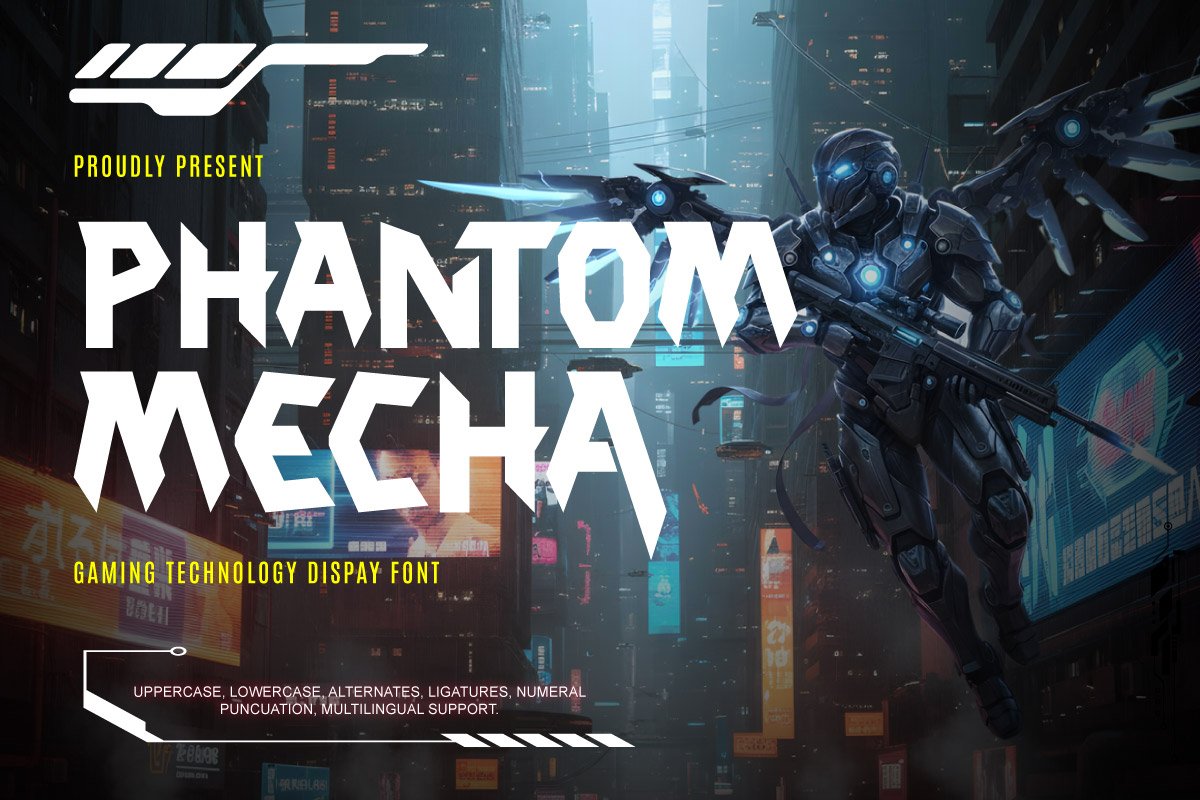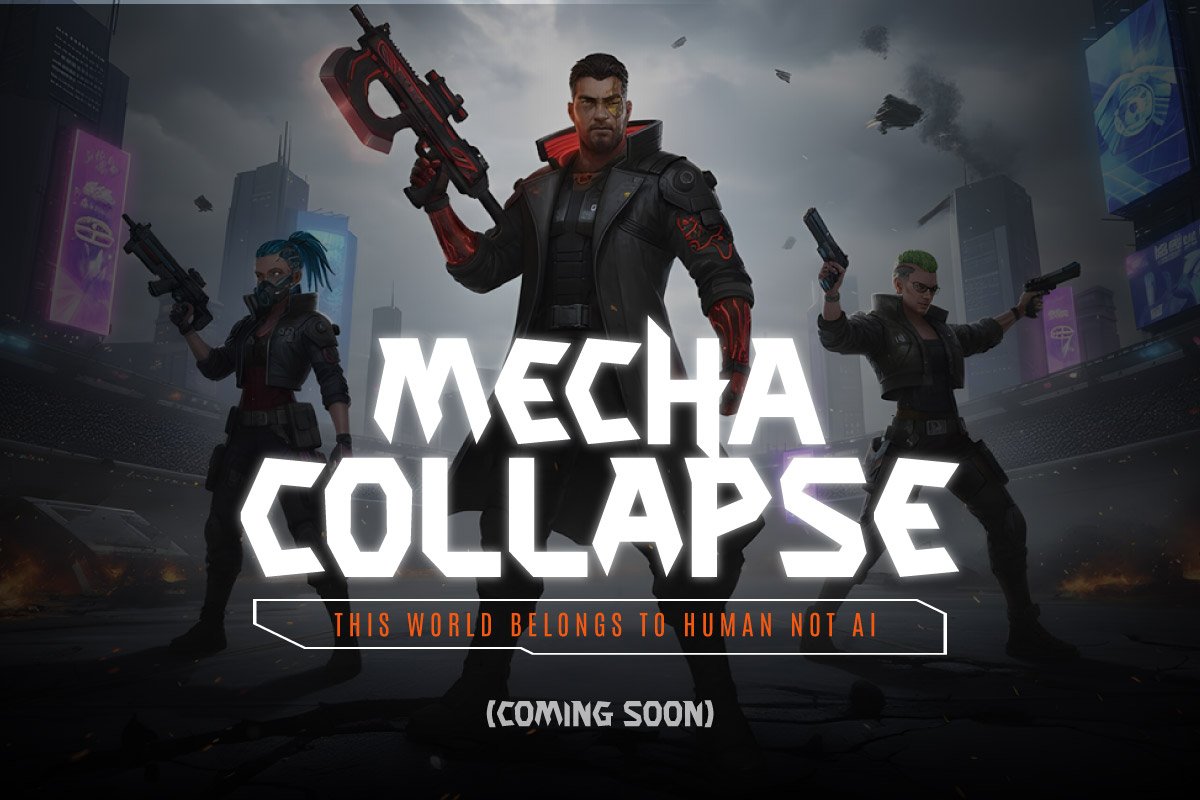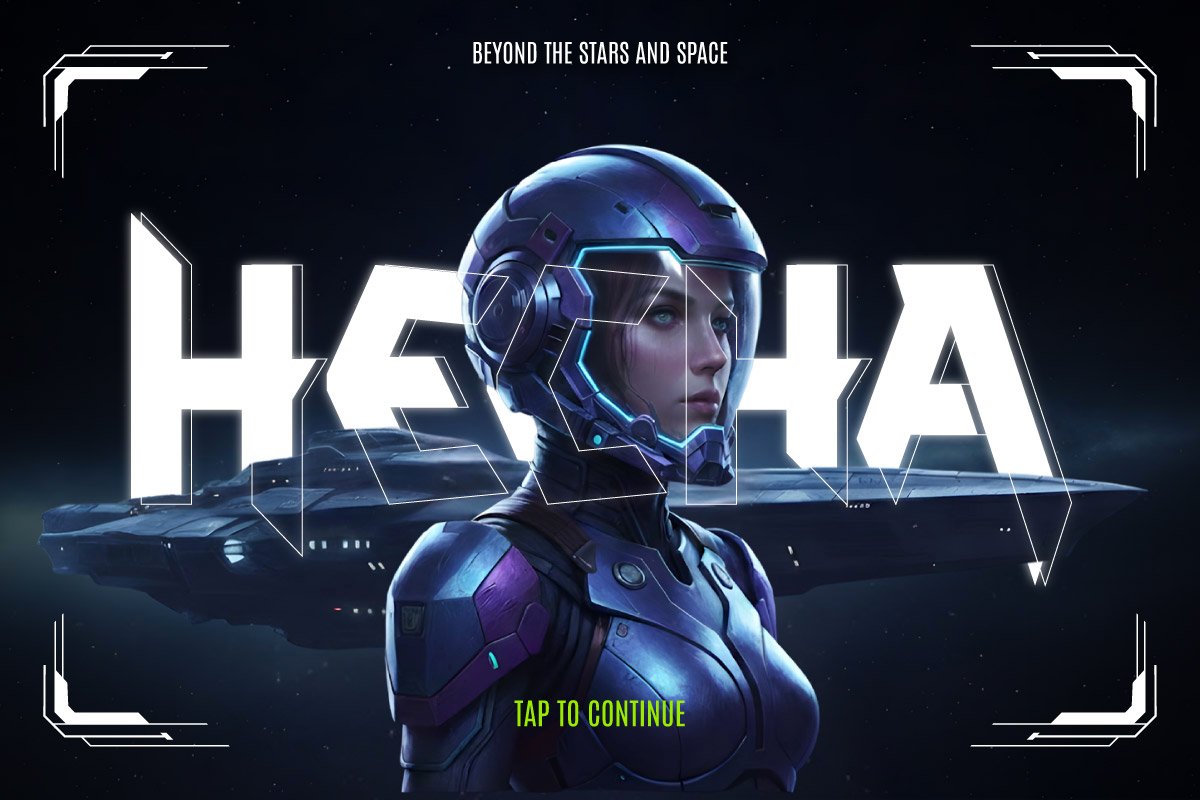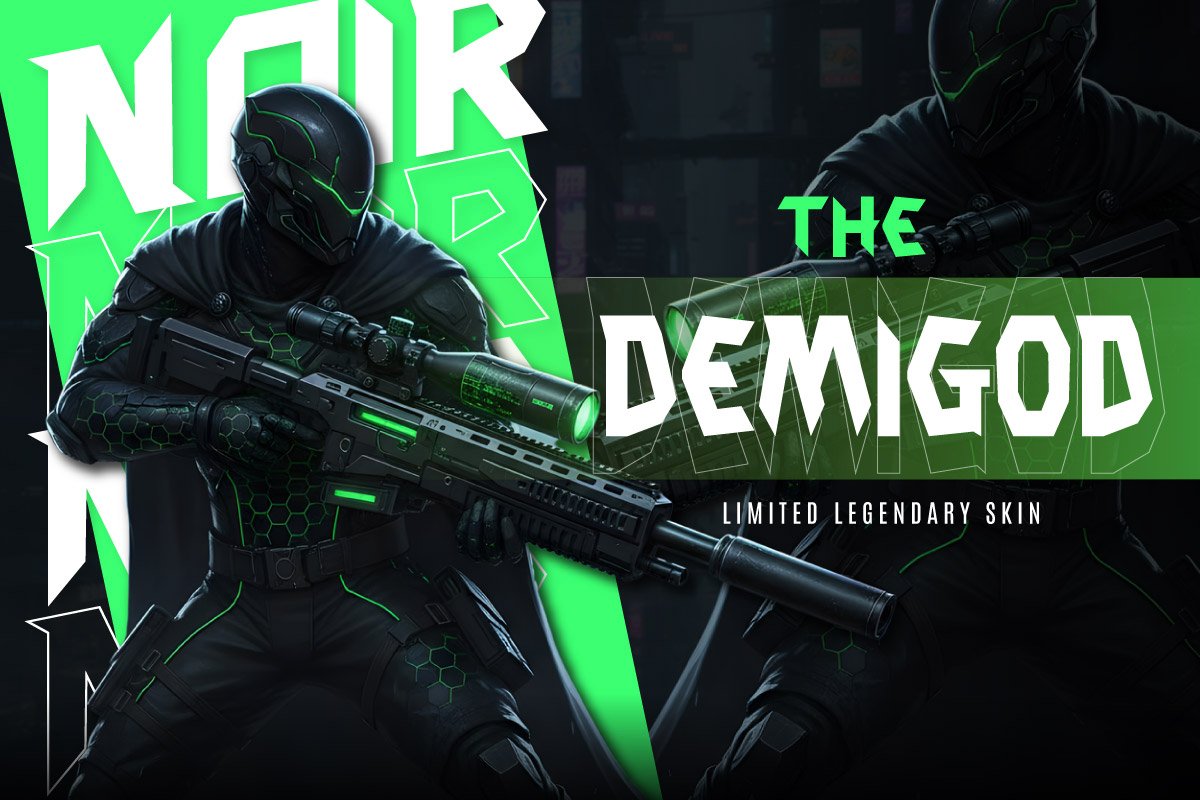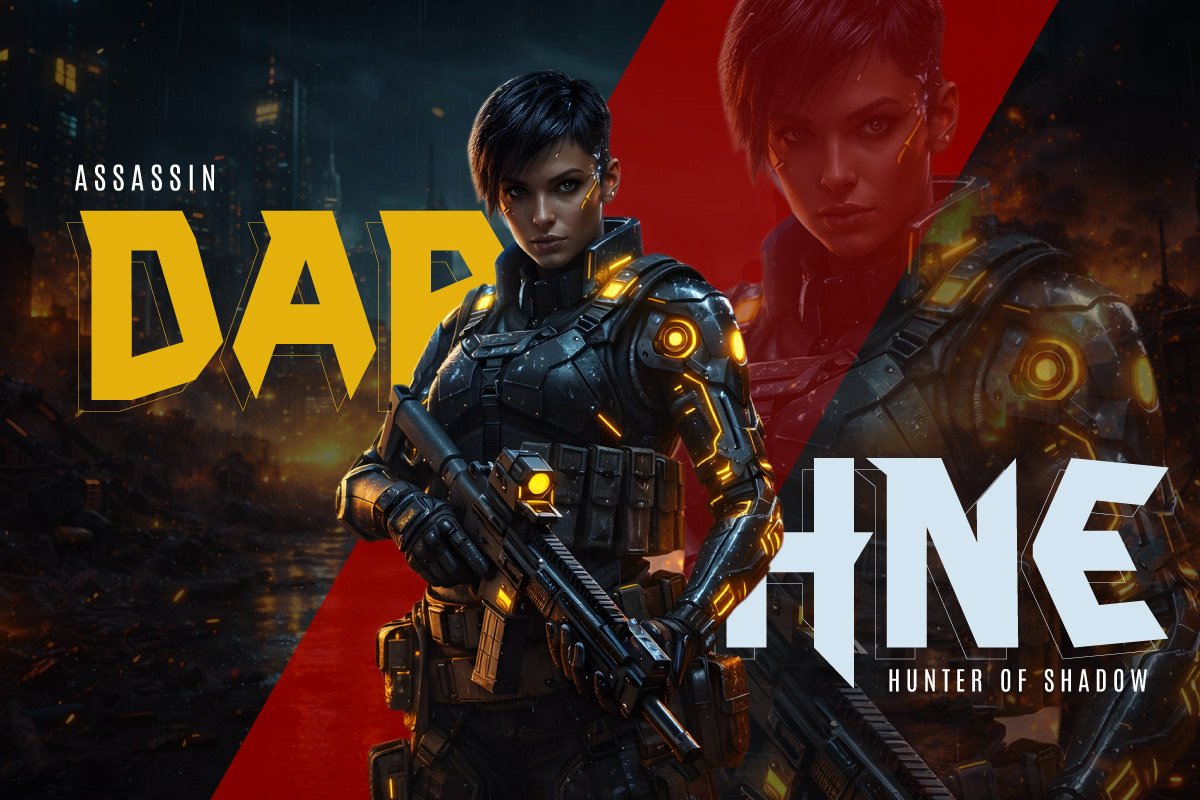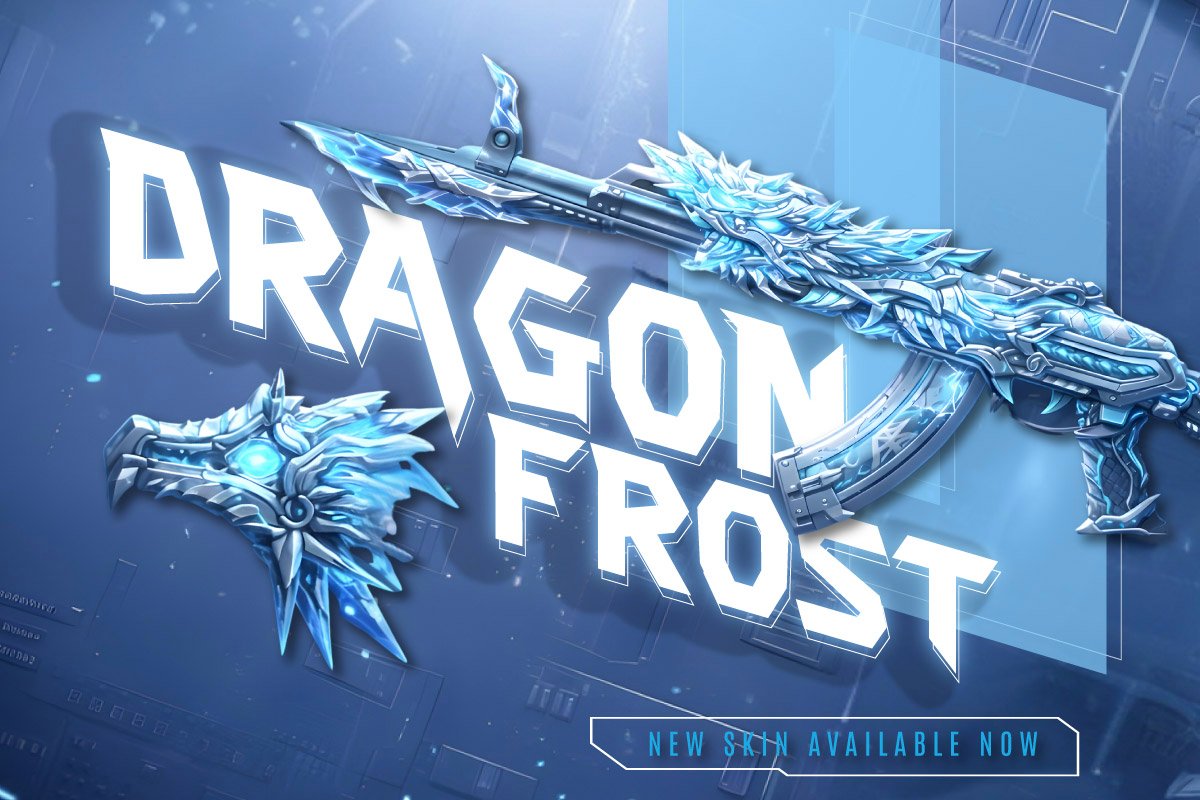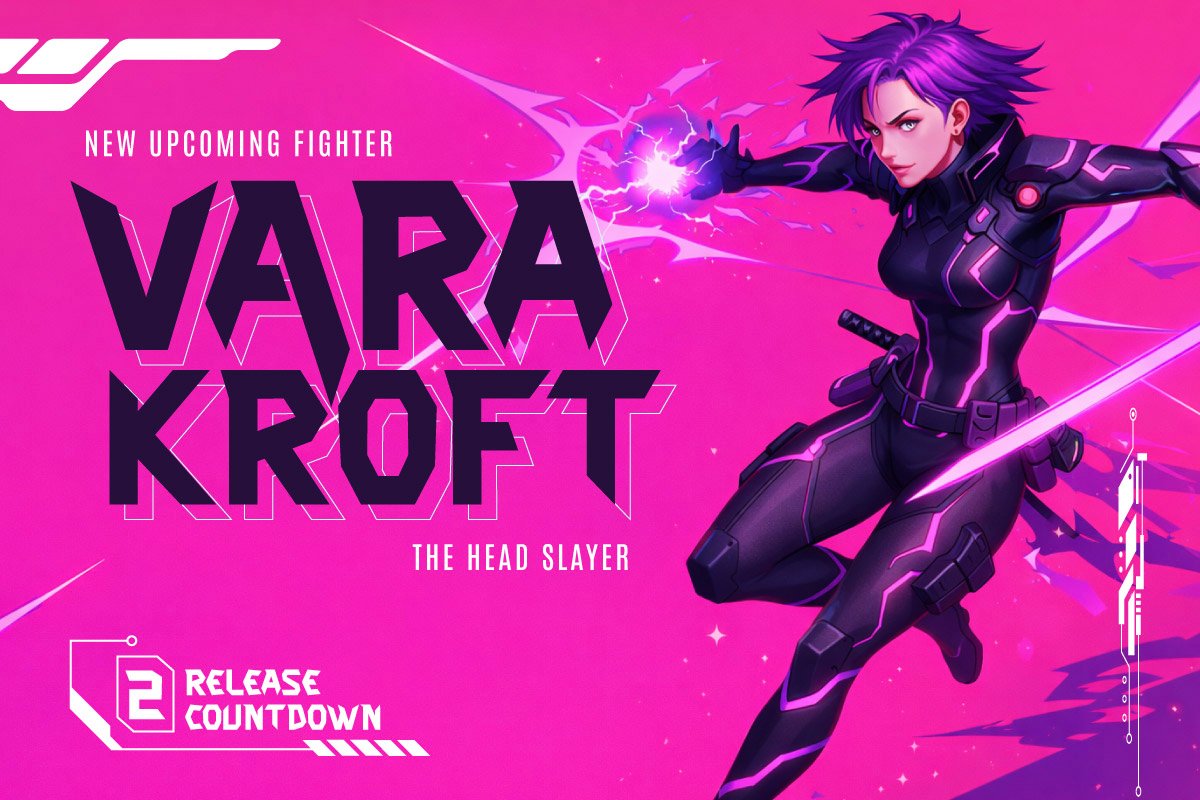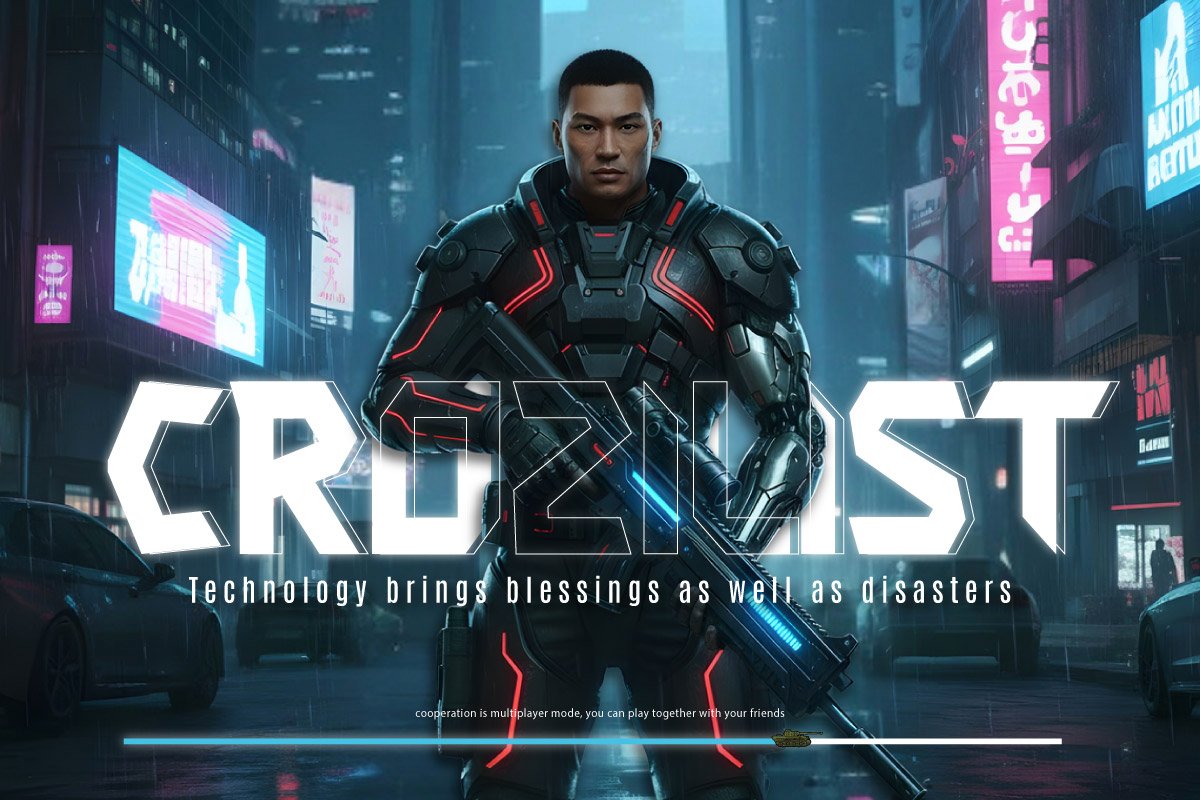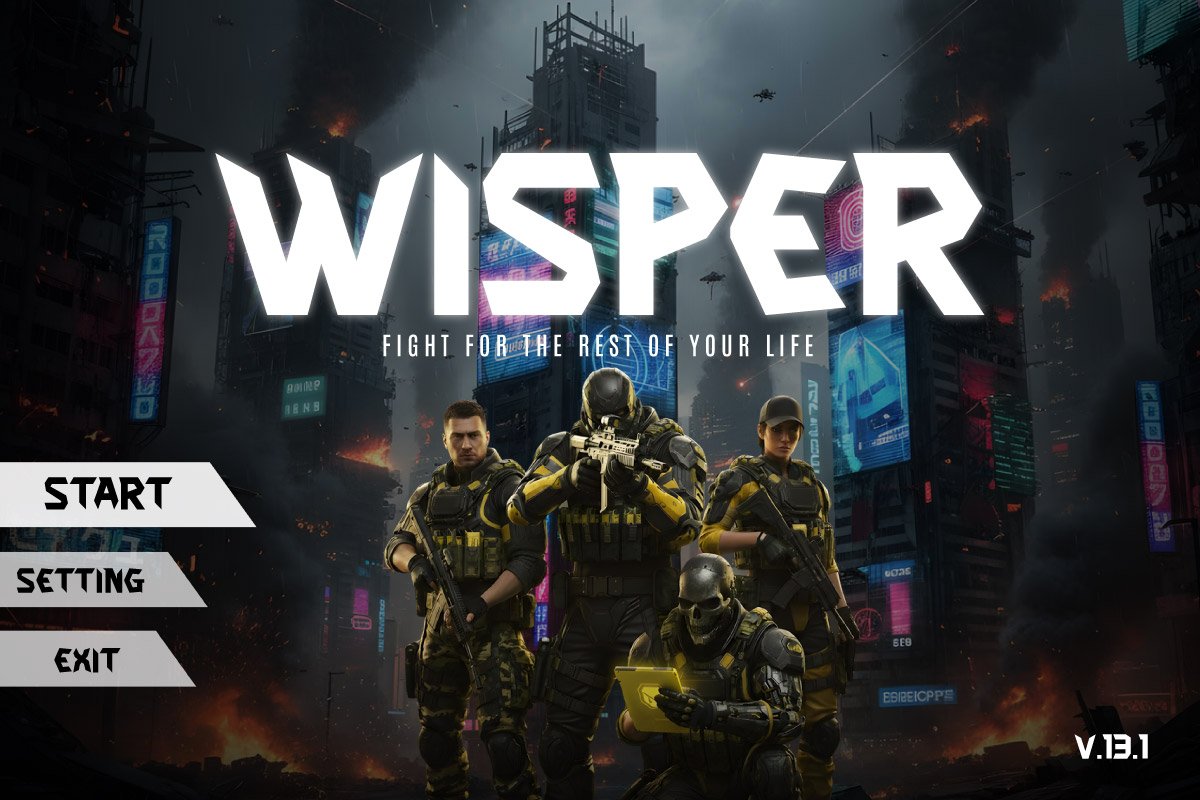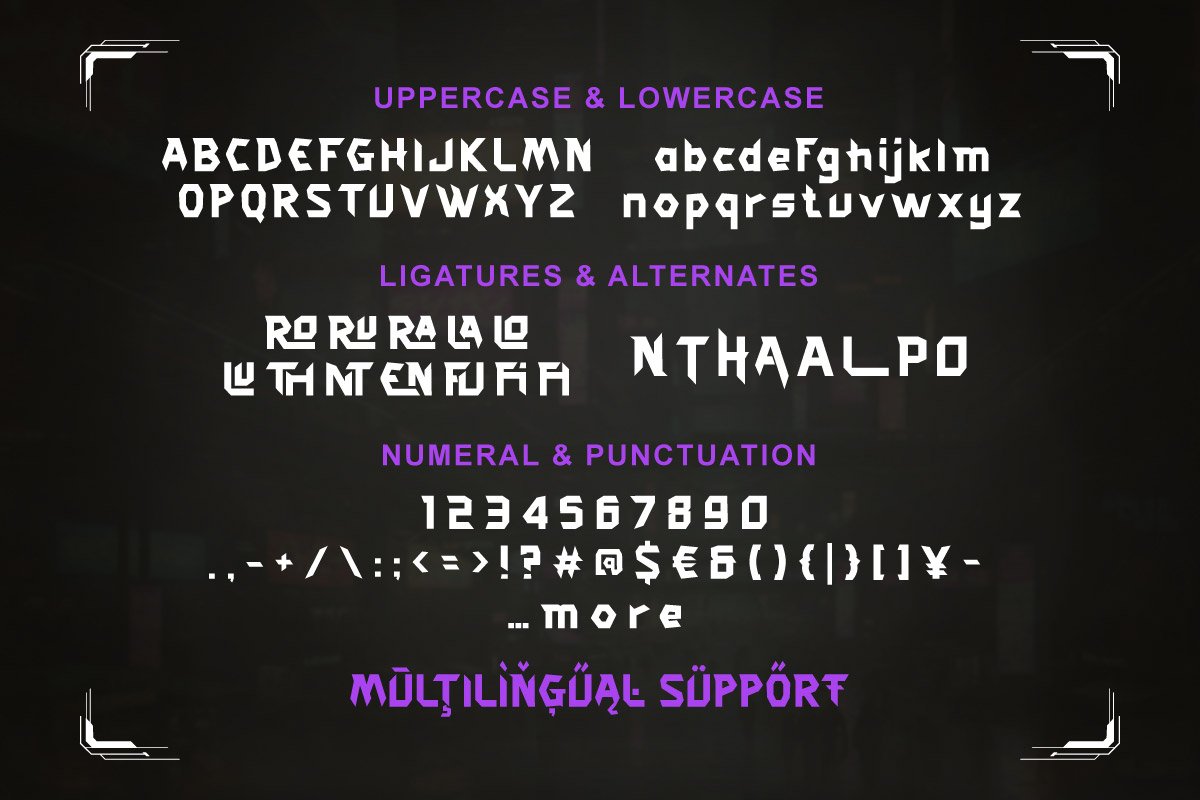
5. Phantom Mecha – Game Technology Display Font
Phantom Mecha – Game Technology Display Font
Phantom Mecha is a Gaming Technology Font typeface featuring a mechanical and futuristic aesthetic. Designed with bold, sharp letterforms, this font represents the precision of robotic technology and modern military hardware. Its visual characteristics are ideal for Action FPS game titles, esports logo designs, and creative projects requiring a strong, tactical visual identity.
The font’s anatomical structure adopts a Military Sci-Fi style with sharp angular cuts to maintain readability across various screen sizes. This makes Phantom Mecha highly functional for Futuristic Weapon UI elements, heads-up display (HUD) graphics, and future-tech infographics. Each character is designed to balance mechanical decorative style with professional technical function.
As a Shooter Game Technology Font, Phantom Mecha provides a stable typography solution for game developers and graphic designers. Equipped with multilingual support and a complete character set, this font offers high flexibility for branding needs in the digital entertainment industry. Phantom Mecha is the right choice for creating an immersive and modern sci-fi atmosphere in any design composition.